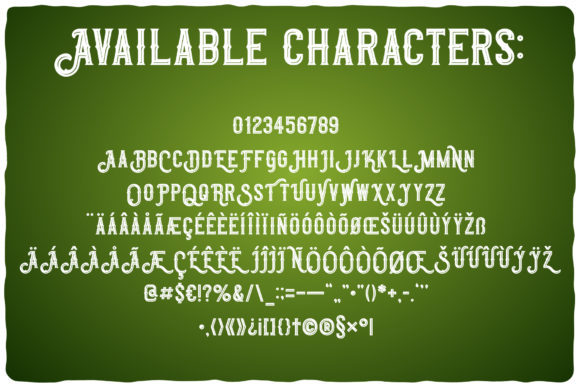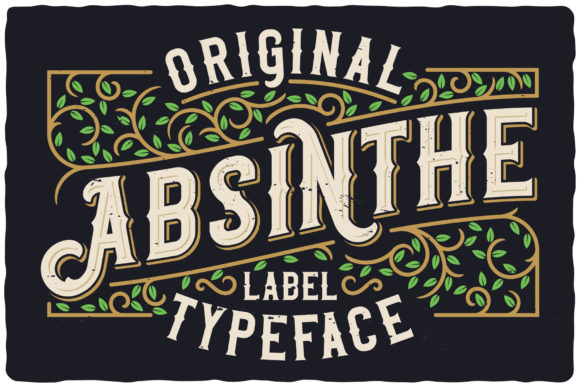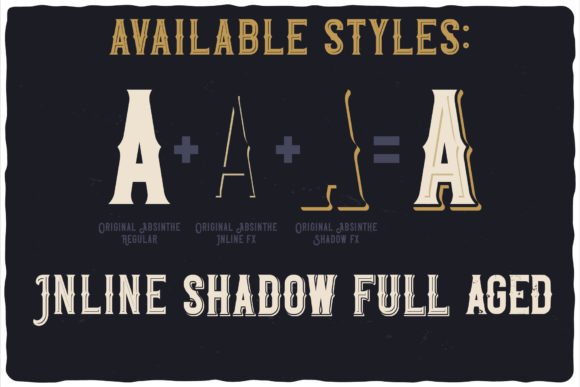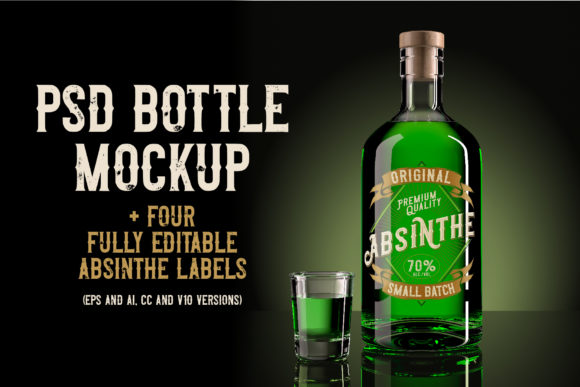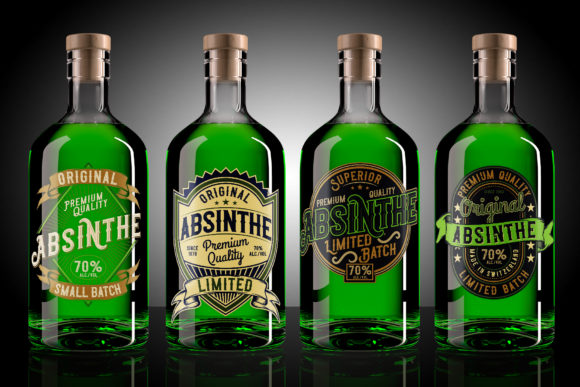
Introduction to Original Absinthe Font
Do you remember the moment when you finally found the perfect font to elevate your design project? The one that makes your logo pop, your headlines shine, and your brand stand out? For designers, that ‘aha’ moment is what drives creativity and pushes us to innovate. And for those seeking a vintage touch, the Original Absinthe Font is about to become your new best friend.
With its bold and authentic style, the Original Absinthe Font is a high-quality design resource that adds value to any project. Whether you’re working on labels, logos, or headlines, this font will transport your audience to a bygone era, exuding sophistication and elegance. Plus, its transparent background makes it easy to work with, allowing you to focus on what really matters – the creative process.
Key Features of Original Absinthe Font
- Unique Art Nouveau design style with intricate details and ornate elements, making it perfect for creative projects and artistic endeavors.
- High-quality font with transparent background, ideal for use on various design resources, such as posters, flyers, and business cards.
- Designed to be versatile and adaptable, making it suitable for use in a variety of creative projects, from wedding invitations to advertising materials.
- Originally designed in the late 19th century, the Original Absinthe Font offers a touch of vintage elegance and sophistication to any design project.
Honest Review: Original Absinthe Font
I recently had the chance to dive into the world of typography with the Original Absinthe Font, and I must say, it’s been a wild ride. This creative project is all about experimenting with unique letterforms and exploring the depths of font design.
The first thing that caught my attention was the stunning high-quality design of the font. The ✨ transparent background adds an extra layer of depth to the overall aesthetic, making it perfect for modern design projects.
- Unique letterforms and design elements
- High-quality design with a ✨ transparent background
- Perfect for creative projects and modern design
- May not be suitable for traditional or formal design projects
- Some users may find the font too unconventional or experimental
Overall, I’m impressed with the Original Absinthe Font. It’s a bold and innovative design resource that’s perfect for pushing the boundaries of typography in creative projects. While it may not be for everyone, I think it’s a great addition to any designer’s toolkit.
The Original Absinthe Font is suitable for a variety of design applications, including branding, advertising, and editorial design. Its elegant and sophisticated style makes it an excellent choice for luxury and high-end projects.